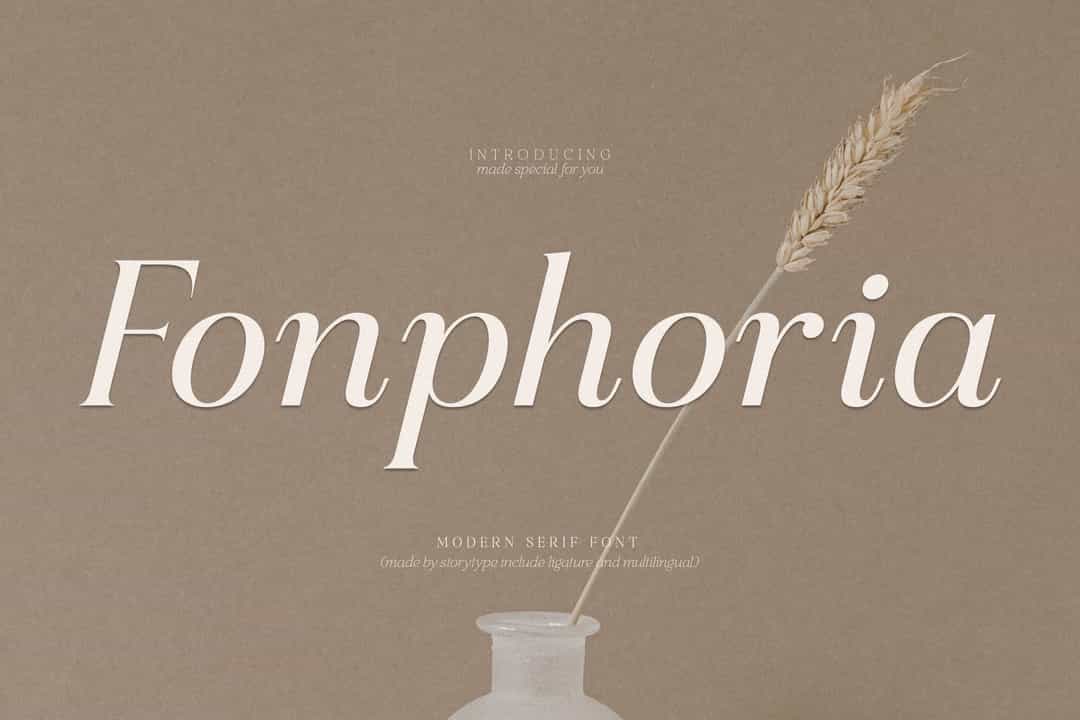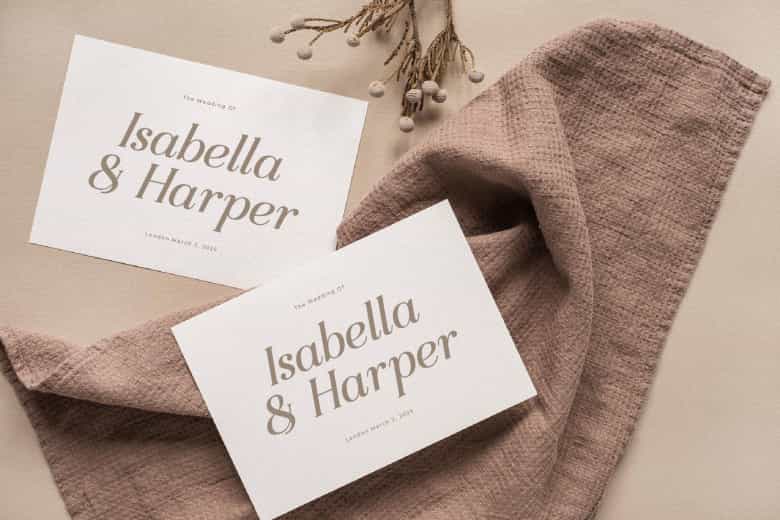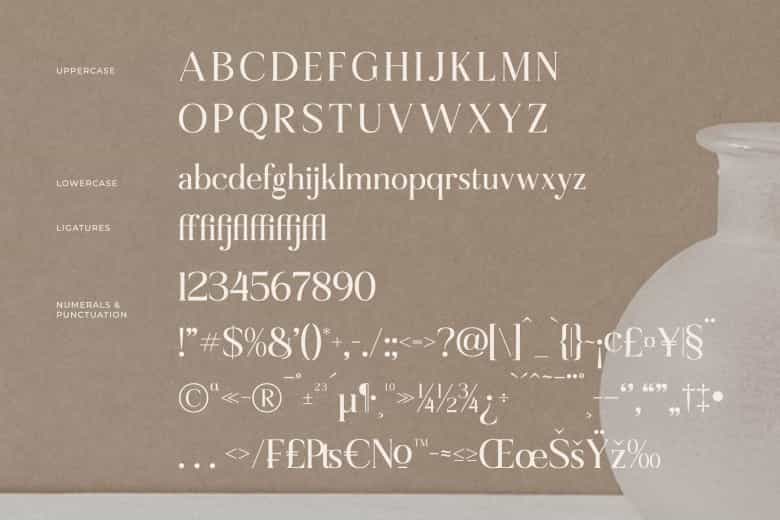
Fonphoria Font by Storytype is an elegant and timeless serif typeface, distinguished by its unique style and appearance. Perfect for creating luxurious logos, book or film titles, fashion brands magazine articles, clothing brands lettering quotes and much more – Fonphoria font can help make a statement!